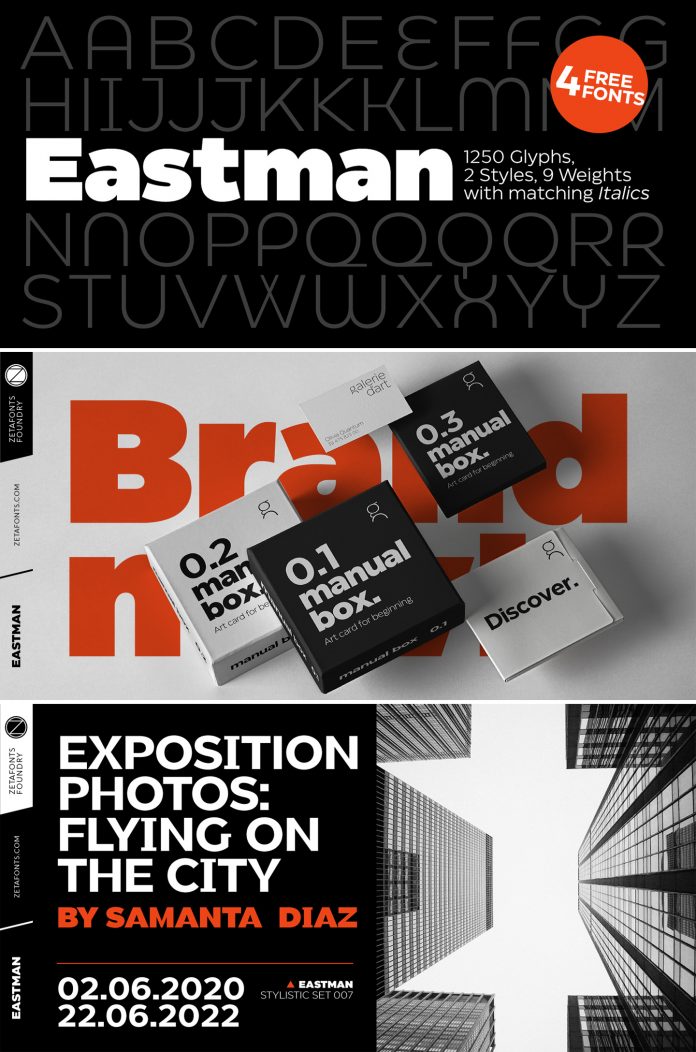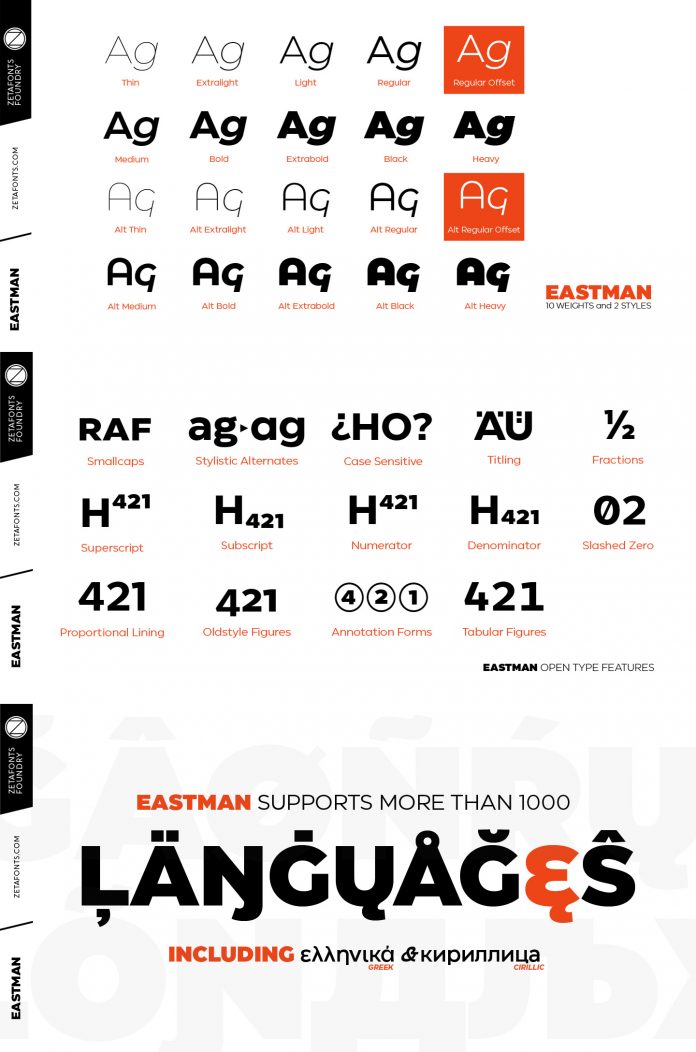
Eastman, a geometric sans serif workhorse developed for maximum versatility.
Designed by Francesco Canovaro and Andrea Tartarelli with help from Solenn Bordeau, Eastman is a sans serif font family consisting of forty-two styles. It was published by type foundry Zetafonts in 2020. This geometric sans serif workhorse was developed for maximum versatility. You can use it for both display and text sections of any size. The wide weight range and the tall x-height result in a typeface that is extremely readable on paper and on the screen.
The geometrical shapes of Eastman are inspired by Bauhaus principles and contemporary minimalism. The Eastman font family also supports multiple languages including all Latin-based characters as well as Cyrillic and Greek letters. Its extensive set of OpenType features includes small capitals, positional numbers, case-sensitive forms, and an impressive array of alternate characters and stylistic sets.